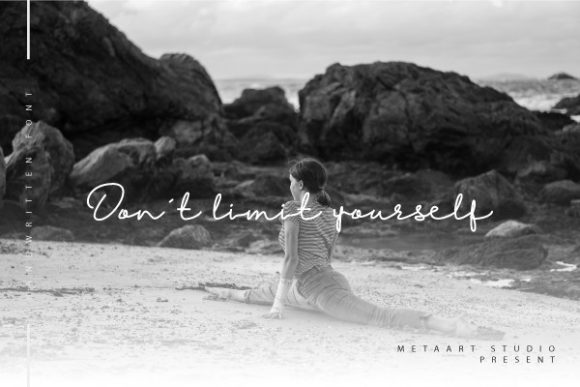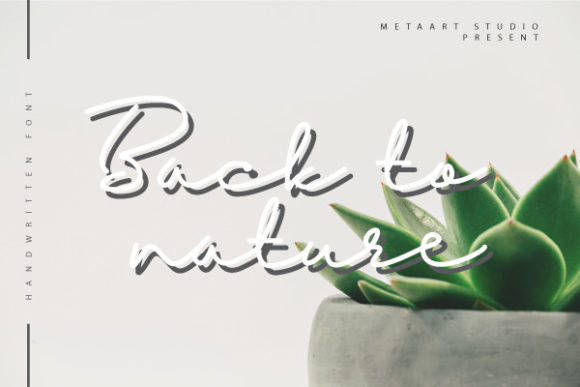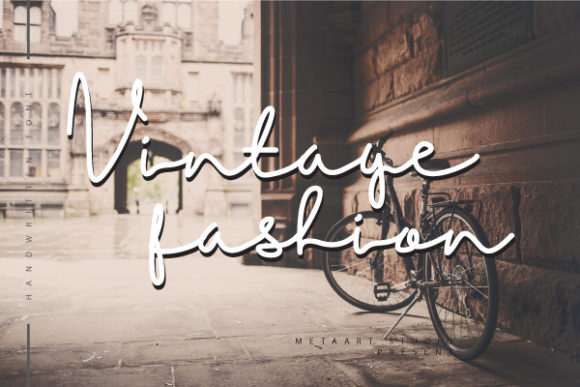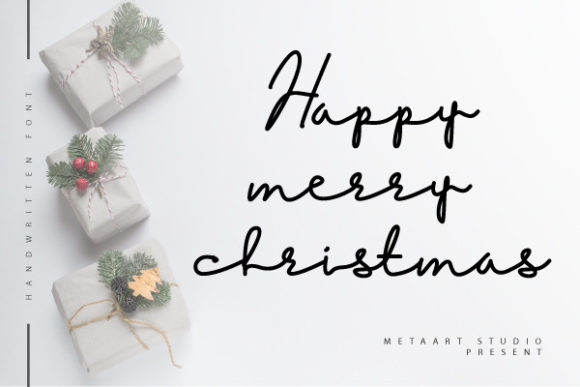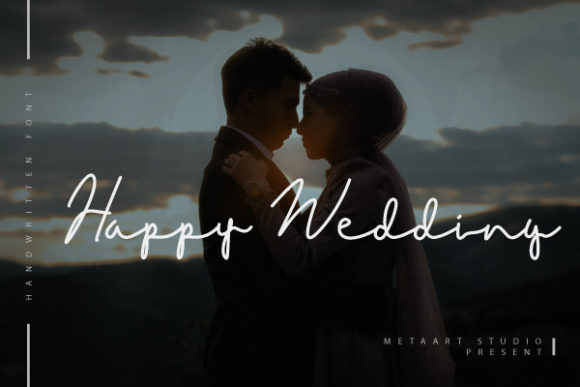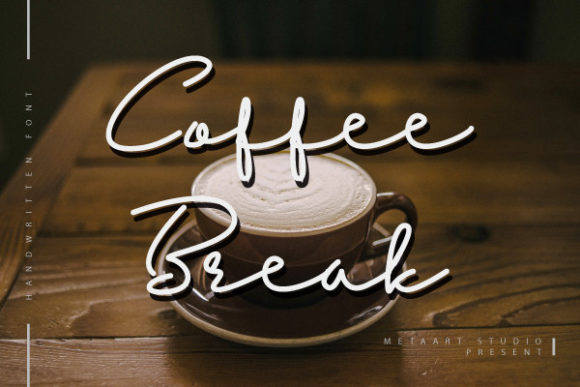
Introducing Hanum Font: The Epitome of Elegance and Romance
Are you a designer or crafter looking for a typeface that exudes elegance and romance? Look no further than Hanum Font, a stunning calligraphy typeface that is sure to elevate any design project to new heights. With its sweet and sophisticated characters, Hanum Font is the perfect choice for anyone seeking to add a touch of refinement and luxury to their work.
The Characteristics of Hanum Font
Hanum Font is a beautifully crafted calligraphy typeface that boasts elegant characters, each one meticulously designed to convey a sense of romance and sophistication. The font features:
- Delicate Lines and Curves: Hanum Font’s lines and curves are expertly crafted to create a sense of fluidity and movement, giving the font a dynamic and elegant feel.
- Sweet and Refined Characters: Each character in Hanum Font is designed to be sweet and refined, making it perfect for use in designs where a touch of elegance is required.
- Highly Legible: Despite its elegant nature, Hanum Font is highly legible, making it suitable for use in a wide range of design projects, from wedding invitations to branding and packaging.
Uses for Hanum Font
Hanum Font’s versatility and elegance make it suitable for a wide range of design projects, including:
- Wedding Invitations and Stationery: Add a touch of romance and sophistication to your wedding invitations, save-the-date cards, and other stationery with Hanum Font.
- Branding and Packaging: Use Hanum Font to create elegant and luxurious branding and packaging for your business or product.
- Signage and Displays: Hanum Font is perfect for use in signage and displays, adding a touch of refinement and elegance to any message or announcement.
- Digital and Print Media: Use Hanum Font in digital and print media, such as magazines, brochures, and social media graphics, to add a touch of sophistication and elegance.
Why Choose Hanum Font?
With so many typefaces to choose from, why should you choose Hanum Font for your design project? Here are just a few reasons:
- Unique and Elegant Design: Hanum Font’s unique and elegant design sets it apart from other typefaces, making it perfect for designers and crafters looking to create something truly special.
- Highly Versatile: Hanum Font is highly versatile, making it suitable for use in a wide range of design projects and applications.
Tips for Using Hanum Font
To get the most out of Hanum Font, here are a few tips to keep in mind:
- Use it Sparingly: Hanum Font is a elegant and refined typeface, so use it sparingly to avoid overwhelming your design.
- Pair it with Other Fonts: Hanum Font pairs well with other fonts, so don’t be afraid to experiment with different combinations to find the perfect look for your design.
- Experiment with Colors and Textures: Hanum Font looks stunning in a variety of colors and textures, so don’t be afraid to experiment to find the perfect look for your design.
In conclusion, Hanum Font is a stunning calligraphy typeface that is sure to add a touch of elegance and romance to any design project. With its delicate lines and curves, sweet and refined characters, and highly legible design, Hanum Font is the perfect choice for designers and crafters looking to create something truly special. So why wait? Download Hanum Font today and start creating your own elegant and luxurious designs!